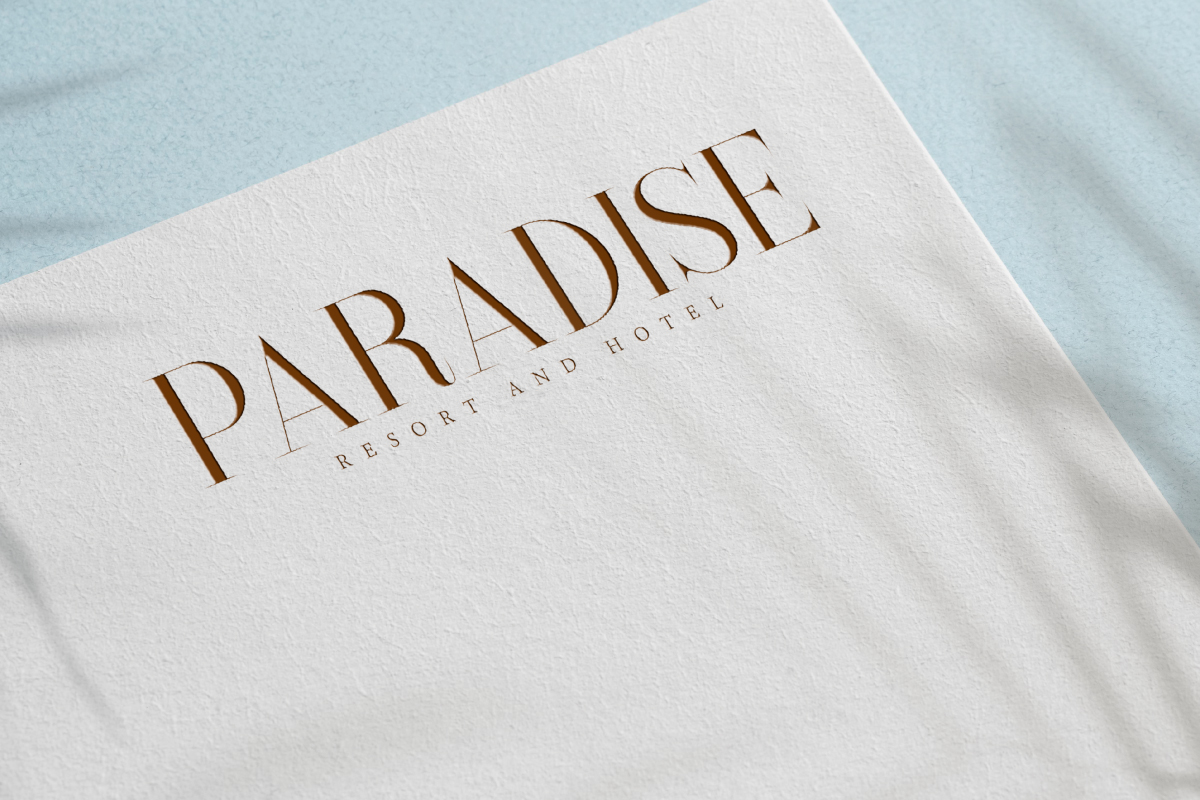
Paradise Thin Font
Paradise Thin Serif Font
This is a modern serif font with sleek style, created by EdricStudio. This typeface has a mixed amazing bold and thin shape that makes it different and feels modern which would be great for an industry, like boutique, craft, fashion, homeware, hotel & resort, journalist, publishing, restaurant, writer, and more!
Paradise Thin Font consists of two styles: Regular and Italic which comes with a full set of Uppercase and Lowercase Basic Characters, Number, large range of Punctuation and Symbol. It has a stunning characters set, perfectly managed with well spaced and kerning. Paradise Thin Font will be great for any projects (with extended license) including: blog headers, business card, labels, letterhead, magazine, signage, title, tote bag design, etc.